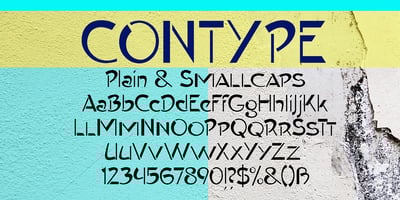
Contype Font Family was designed by Gert Wiescher and published by Wiescher Design. Contype contains 2 styles and family package options. Once I had a young, very eager and interested designer in my employ. We got into talking about where our letterforms come from and the habits in perception we are used to. He did not quite believe me. So I said, let’s try to design a typeface where everything is just the opposite of what we are used to. We really had a hard time, our habits crept up on us all the time. But after a couple of weeks we finally finished this typeface and wanted to call it crazytype, but my young apprentice who did most of the manual labor said Contype sounded crazier. So it became Contype and it’s really crazy, with a small asian touch to it. Yours very crazy Gert Wiescher